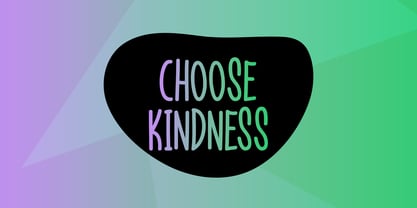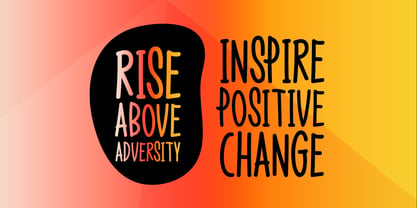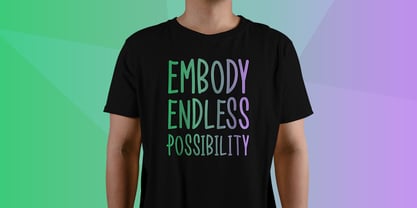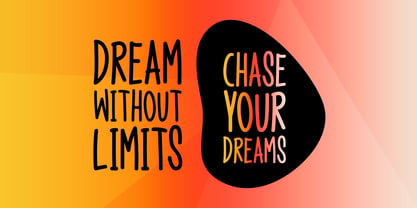
Grownup
por Seemly Fonts
La familia tipográfica Grownup fue diseñada por Md. Sohail Bhuiyan y publicada por Seemly Fonts. Grownup contiene 1 estilos. Más información sobre esta familia
Grownup is an elegant and expressive handwritten font with a unique and whimsical style that gives any design a unique touch. From individualized stationery and logo designs to t-shirts, posters, and print materials, its flowing strokes and distinct charm make it the ideal option for a wide range of artistic endeavors. Grownup adds warmth and sincerity to any design, whether you're creating music album covers, social media visuals, or invitations.
Diseñadores: Md. Sohail Bhuiyan
Fundición: Seemly Fonts